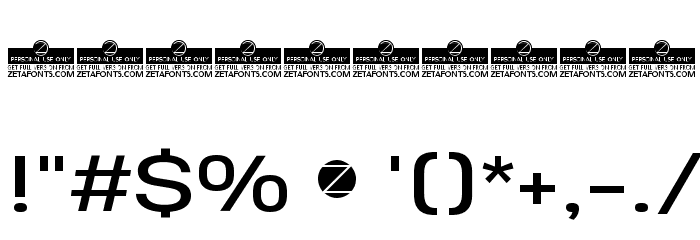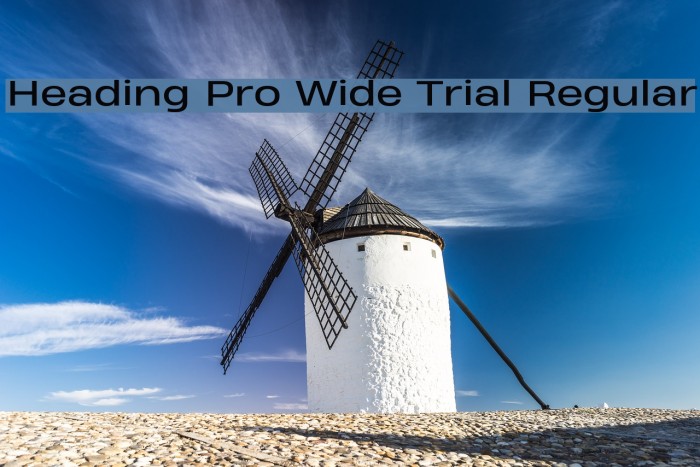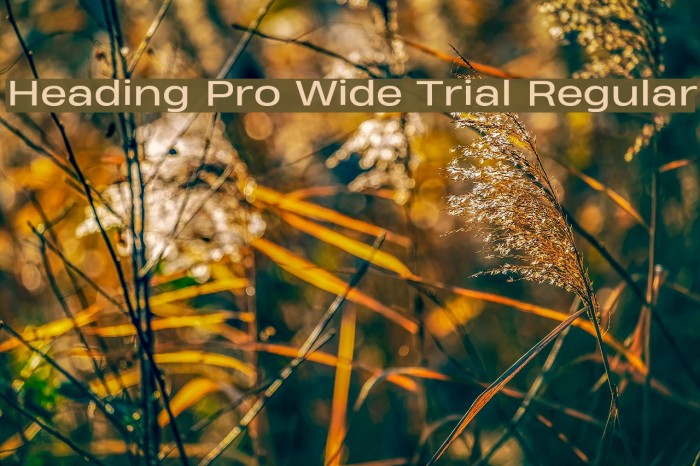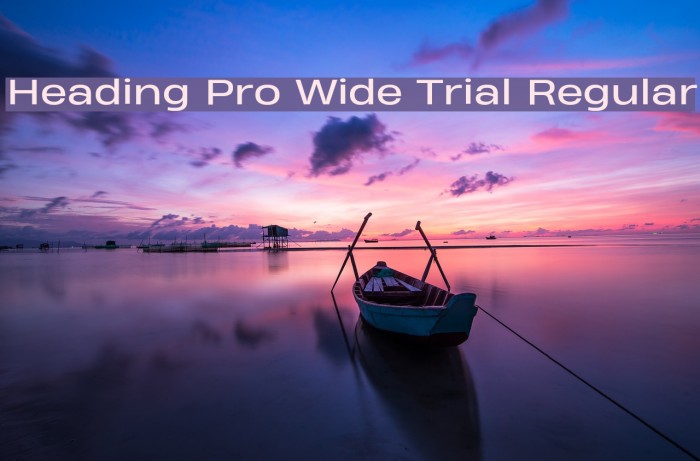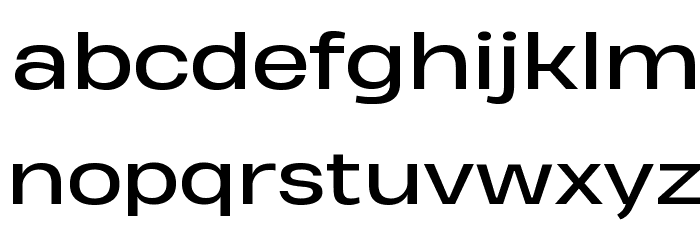
Heading Pro Wide Trial Regular Font
Heading Pro Wide Trial Regular Description
This font features a clean and modern sans-serif design with a wide stance, giving it a contemporary and professional appearance. The characters are evenly spaced, contributing to its readability and versatility. The uppercase and lowercase letters maintain a consistent style, with smooth curves and straight lines that create a balanced look. The numerals and special characters are designed to match the overall aesthetic, ensuring uniformity across different uses. This font is suitable for a variety of applications, from digital to print media, due to its clarity and straightforward design.
A modern, wide sans-serif font with a clean and professional look from Uncategorized fonts.
- Proposed Projects: Ideal for branding, advertising, website headers, and editorial design.
- Use Case: Headlines, Logos, Branding